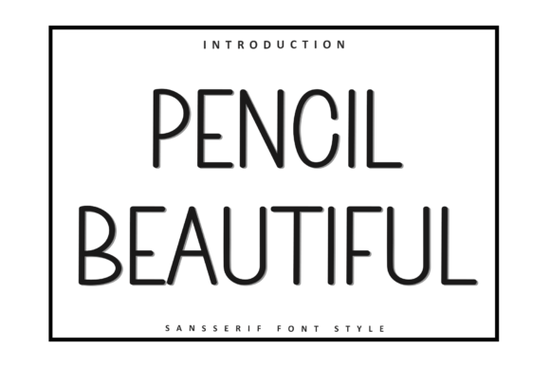
If you're looking for a font that feels handcrafted yet polished, Pencil Beautiful is a thoughtful choice. It’s not just another stylish typeface it has a gentle, organic flow that brings warmth to any project. Whether you’re designing greeting cards, branding materials, or print-on-demand products, this font adds a personal touch without overwhelming the message.
What makes Pencil Beautiful stand out?
Unlike rigid digital fonts, Pencil Beautiful mimics the subtle imperfections of real pencil strokes. The letterforms have soft curves and slight variations in thickness, giving them a handmade quality. This isn’t just about looks it makes your designs feel more authentic and inviting. It’s perfect for projects where you want to convey thoughtfulness, creativity, or a personal connection.
The font supports a wide range of characters, including uppercase and lowercase letters, numbers, punctuation, and common symbols. That means you can use it for everything from product labels to social media graphics, invitations, or even logo concepts.
Where can you use this font effectively?
- Handmade crafts: Add charm to tags, packaging, or labels for candles, soaps, or small-batch goods.
- Invitations and stationery: Ideal for baby showers, weddings, or thank-you notes where a delicate touch matters.
- Branding and logos: Use it for businesses that value authenticity think boutiques, art studios, or wellness brands.
- Print-on-demand items: Perfect for T-shirts, mugs, and tote bags where a unique, artistic flair boosts appeal.
Its versatility means it fits into many creative niches without feeling out of place. You won’t find it overused on popular platforms, which helps your work stand out.
How does it compare to other similar fonts?
If you’ve explored fonts like Ottero, Affigue, or Goks, you’ll notice that each has its own personality. Pencil Beautiful leans more toward softness and natural rhythm compared to sharper or bolder alternatives. While Hightone Family offers modern structure, Pencil Beautiful brings something quieter and more expressive ideal when you want to highlight emotion over formality.
For those who enjoy experimenting with typography, trying multiple styles helps build a stronger design sense. Mixing Pencil Beautiful with a clean sans-serif can create balance use the pencil font for headlines and a neutral typeface for body text.
Final thoughts: Is it right for your next project?
If you’re drawn to fonts that feel alive and intentional, Pencil Beautiful delivers. It’s not flashy, but it leaves a lasting impression through subtlety. It’s especially useful if you’re aiming for a cozy, artisanal vibe in your work.
Remember: great design often comes from choosing the right tool for the mood not just the trend. This font gives you room to be creative while keeping things simple and sincere.